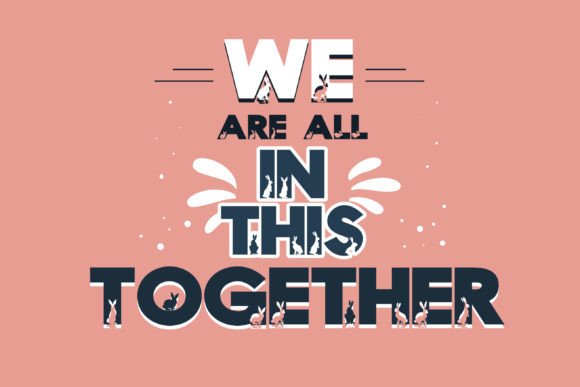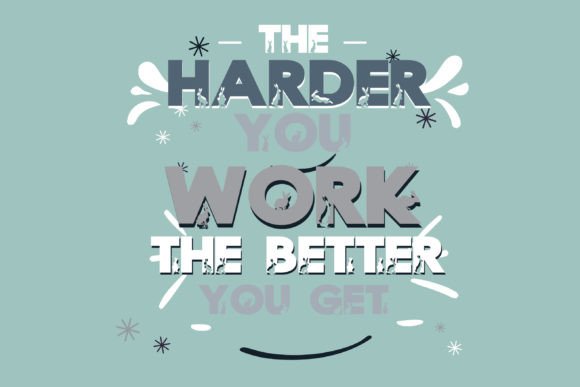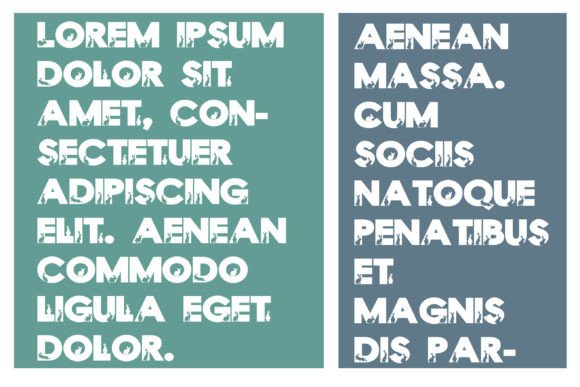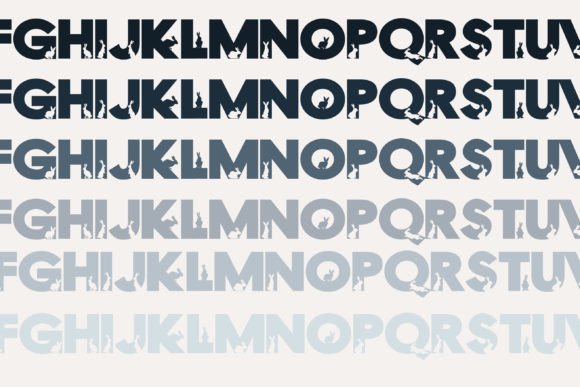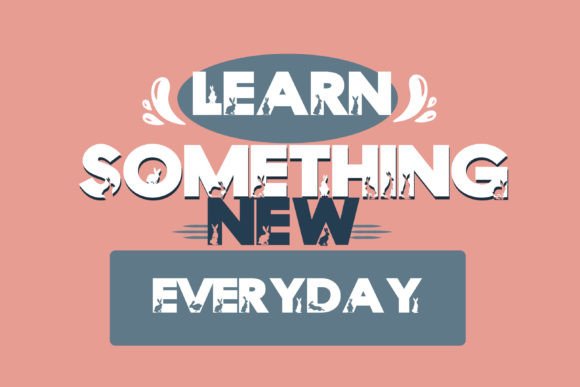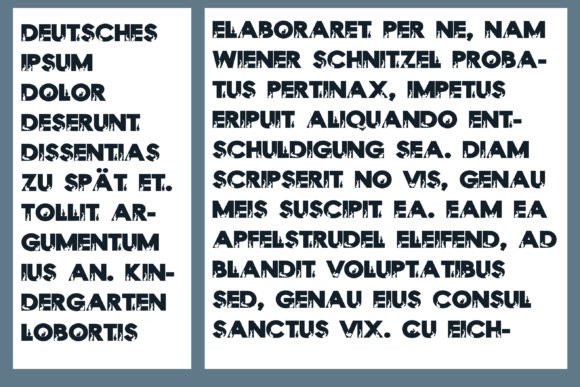
Designing with a Personal Touch
Have you ever been working on a design project, and you just can’t seem to capture the right vibe? You want your audience to feel like they’re sitting in a cozy coffee shop, sipping a warm latte, rather than staring at a cold, corporate logo. That’s where the perfect font comes in – and for many designers, that font is the Bunny Shadow Font.
Bunny Shadow is a friendly and approachable option that adds a soft, welcoming touch to any design. Its clean lines and rounded edges make it easy on the eyes, while its simple design ensures that your message is clear and concise. Whether you’re creating a brand identity, a website, or a social media campaign, the Bunny Shadow Font is a valuable tool in your design toolkit.
Bunny Shadow Font Key Features
- Character Set: This font features a wide range of characters, including uppercase and lowercase letters, numbers, and special characters, making it suitable for a variety of design projects.
- Unique Characteristics: The Bunny Shadow Font boasts a distinctive bunny-inspired design, adding a playful touch to any text-based project. Its unique shadow effect gives it a 3D appearance, making it perfect for titles, headings, and other display text.
- Font Weight and Style: Bunny Shadow Font comes in a range of weights and styles, including light, regular, bold, and italic, allowing designers to achieve the desired level of contrast and emphasis.
Bunny Shadow Font Review
Overall, I’d say the “Bunny Shadow Font” is a decent addition to any designer’s toolkit. There are some things it does particularly well.
- ✨ The font’s playful and whimsical vibe is perfect for projects that need a touch of fun and lightheartedness.
- ✨ The shadow effect adds a nice layer of depth to the text, making it stand out on most backgrounds.
- ✨ The font’s wide range of weights and styles means you’ve got plenty of options for customizing your designs.
However, there are some limitations to be aware of.
- ⚠️ The font may not be the best choice for projects that require a more serious or professional tone.
- ⚠️ The shadow effect can be a bit overbearing at times, especially when used in large quantities.
- ⚠️ Some users may find the font’s irregularities and imperfections distracting.
Overall, I’d give the “Bunny Shadow Font” 3.5 out of 5 stars. It’s a solid choice for the right project, but may not be the best fit for every designer’s needs.
Consider using the font in a playful or whimsical context to add a touch of personality to your design.
The Bunny Shadow Font is ideal for:
Children’s books and educational materials.
Playful advertisements and marketing campaigns.
Whimsical event invitations and party decorations.